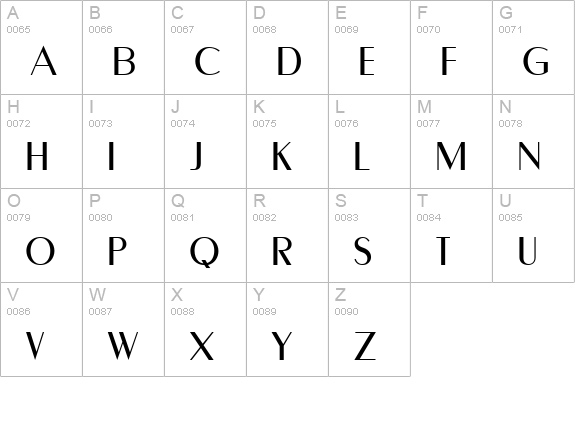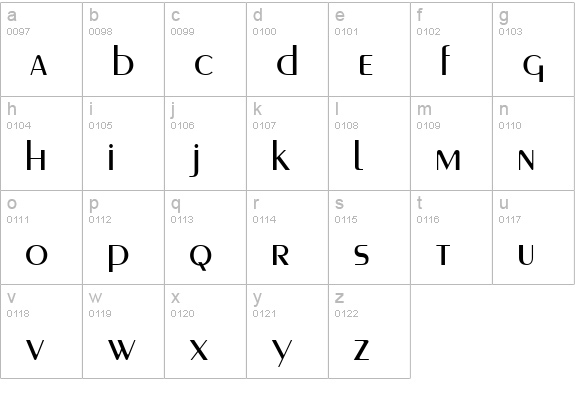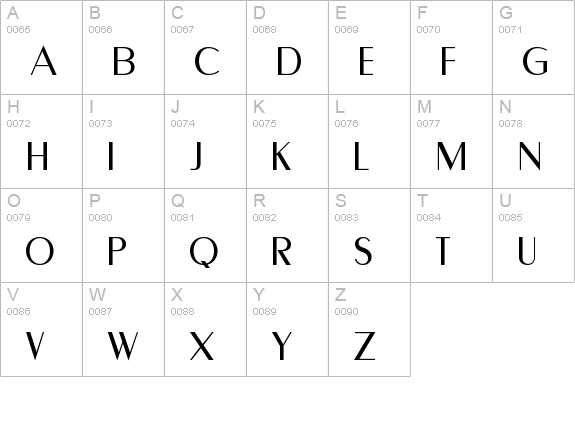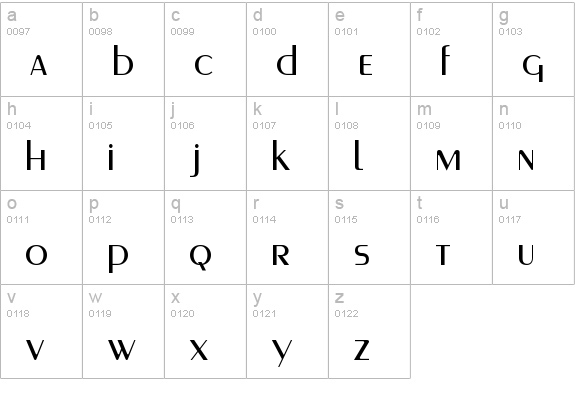
Paquete Light SSi Light Font Details
Paquete Light SSi Light is a refined, elegant variant in the Paquete typeface family \xE2\x80\x94 well suited to elegant body text, refined sub-headings, and luxury branding.
The Paquete Light SSi Light font is a stunningly elegant typeface that exudes sophistication and charm. Its clean lines and delicate curves create a sense of simplicity and grace, making it a perfect choice for any design project that requires a touch of finesse. This font's light weight adds a sense of delicacy and subtlety, making it ideal for titles, headings, and other attention-grabbing elements. Whether you're designing a website, creating a logo, or crafting a beautiful invitation, the Paquete Light SSi Light font will enhance your project with its refined and polished appearance. One of the best things about this font is that it is freely available to download at FontsMarket.com. This means that you can easily access this beautiful typeface without any cost, making it an incredible value for designers and enthusiasts alike. So why wait? Download the Paquete Light SSi Light font today and elevate your designs to new heights of elegance and sophistication.